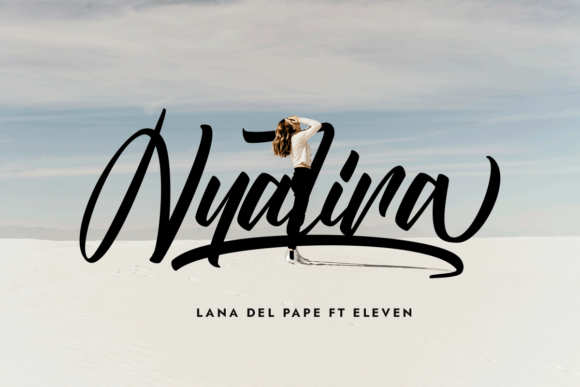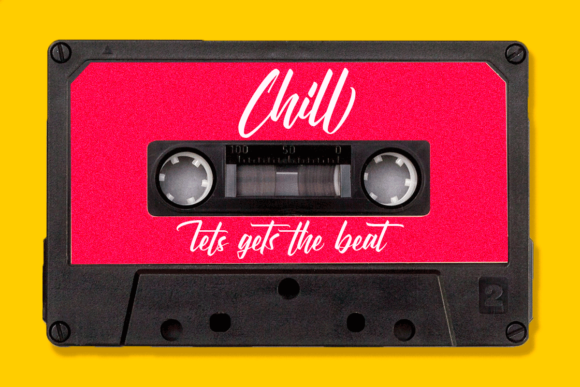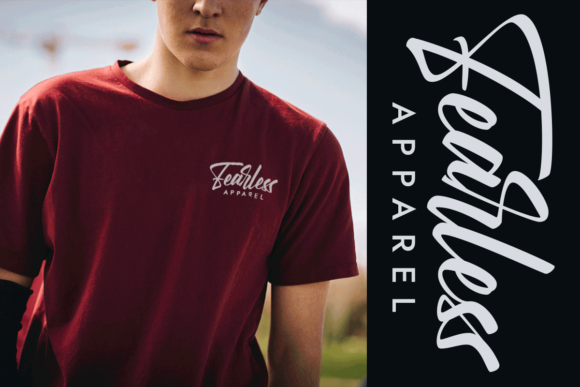
Introduction to Kenshin Font
Have you ever been working on a creative project, pouring your heart and soul into every detail, only to find the perfect font is missing? For designers, finding that elusive font can make all the difference in elevating a design from good to great. And that’s exactly what the Kenshin Font aims to do – simplify elegance into one truly outstanding handwritten font.
With its high-quality design and versatility, the Kenshin Font is an invaluable resource for designers. Whether you’re working on a logo, a brochure, or a website, this font is sure to add a touch of sophistication and creativity to your project. Plus, with its transparent background, you can easily layer it over other design elements to create a unique and eye-catching visual effect.
About Kenshin Font
Available for free download, the Kenshin Font is a game-changer for designers looking for a reliable and high-quality design resource. Its ability to adapt to both maximum and minimum variations makes it perfect for headlines of all sizes, as well as blocks of text that require a delicate balance between style and readability.
Key Features of Kenshin Font
- High-quality design resource for creative projects, perfect for graphic designers and digital artists.
- Unique, hand-drawn style with a transparent background, allowing for seamless integration with any design element.
- Includes a wide range of characters, including Latin, Cyrillic, and Greek alphabets, making it suitable for multilingual projects.
- Perfect for use in digital art, logos, typography, and other creative projects where a unique and eye-catching font is required.
Honest Review: Kenshin Font
I recently had the chance to work with the Kenshin Font, and I must say it’s been a great addition to my design arsenal. As a designer, I’m always on the lookout for high-quality design resources that can elevate my creative projects.
What works well with Kenshin Font is its versatility. I can use it for a wide range of projects, from logos to typography-based designs. The font’s elegant and modern design makes it perfect for creating a professional and sophisticated look. Another great feature is the transparent background option, which allows for seamless integration with any design element.
- ✨ Versatile and can be used for various design applications
- ✨ Transparent background option for easy integration
However, I do have to mention a few limitations. The font doesn’t come with a lot of font styles, which might limit its use in certain situations. Additionally, the font is only available for free download, which means it’s not suitable for commercial use.
Overall, I’m impressed with the Kenshin Font. It’s a great free design resource that can add a touch of elegance to any creative project. Just be aware of its limitations before using it for commercial purposes.
The Kenshin Font is a high-quality design resource that offers a unique and creative touch to any project. With its transparent background, this font is perfect for adding a touch of elegance to your designs.
The Kenshin Font is perfect for a variety of creative projects, including graphic design, digital art, and even wedding invitations. Its elegant design makes it a great choice for formal events and high-end branding.